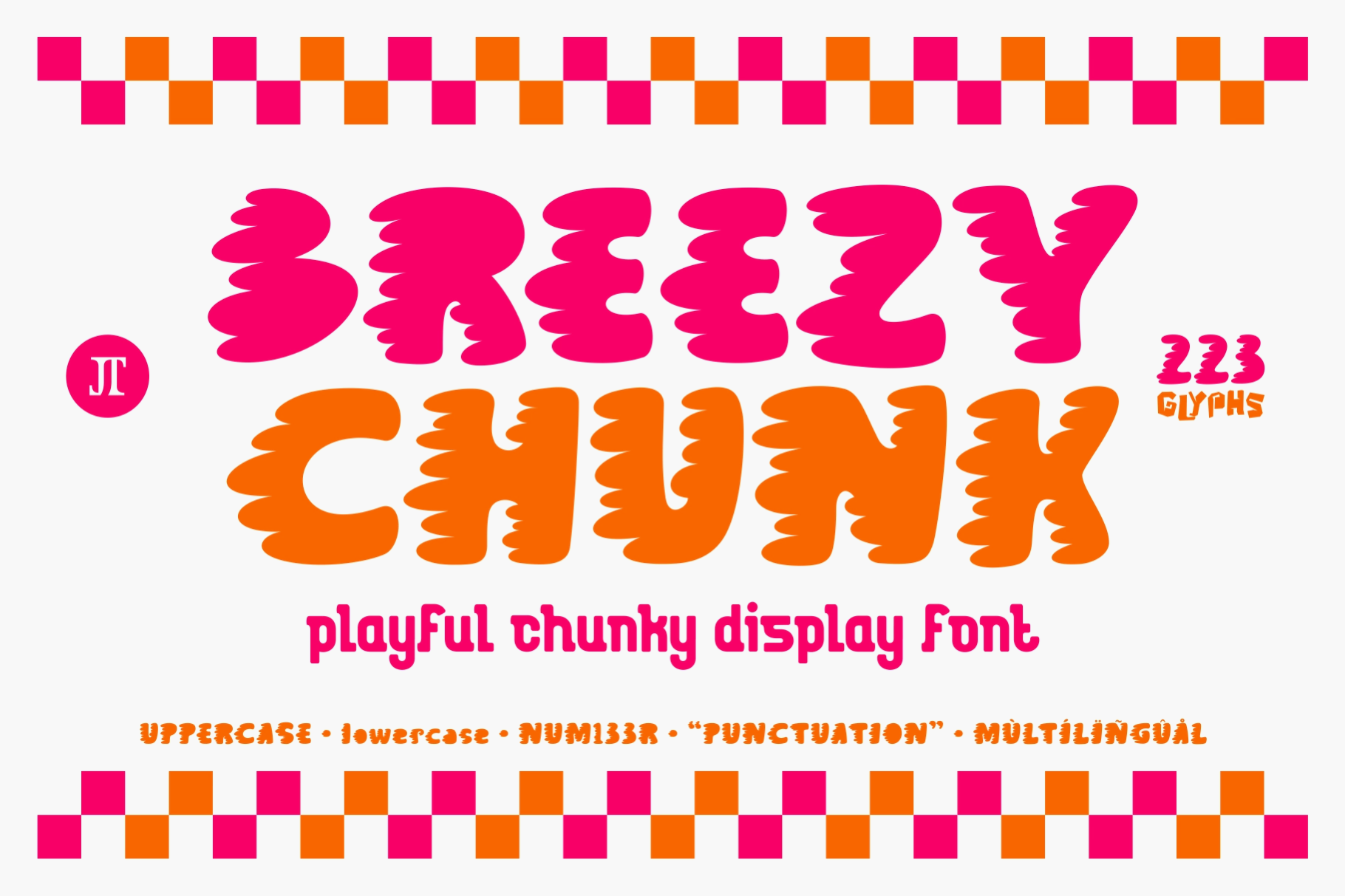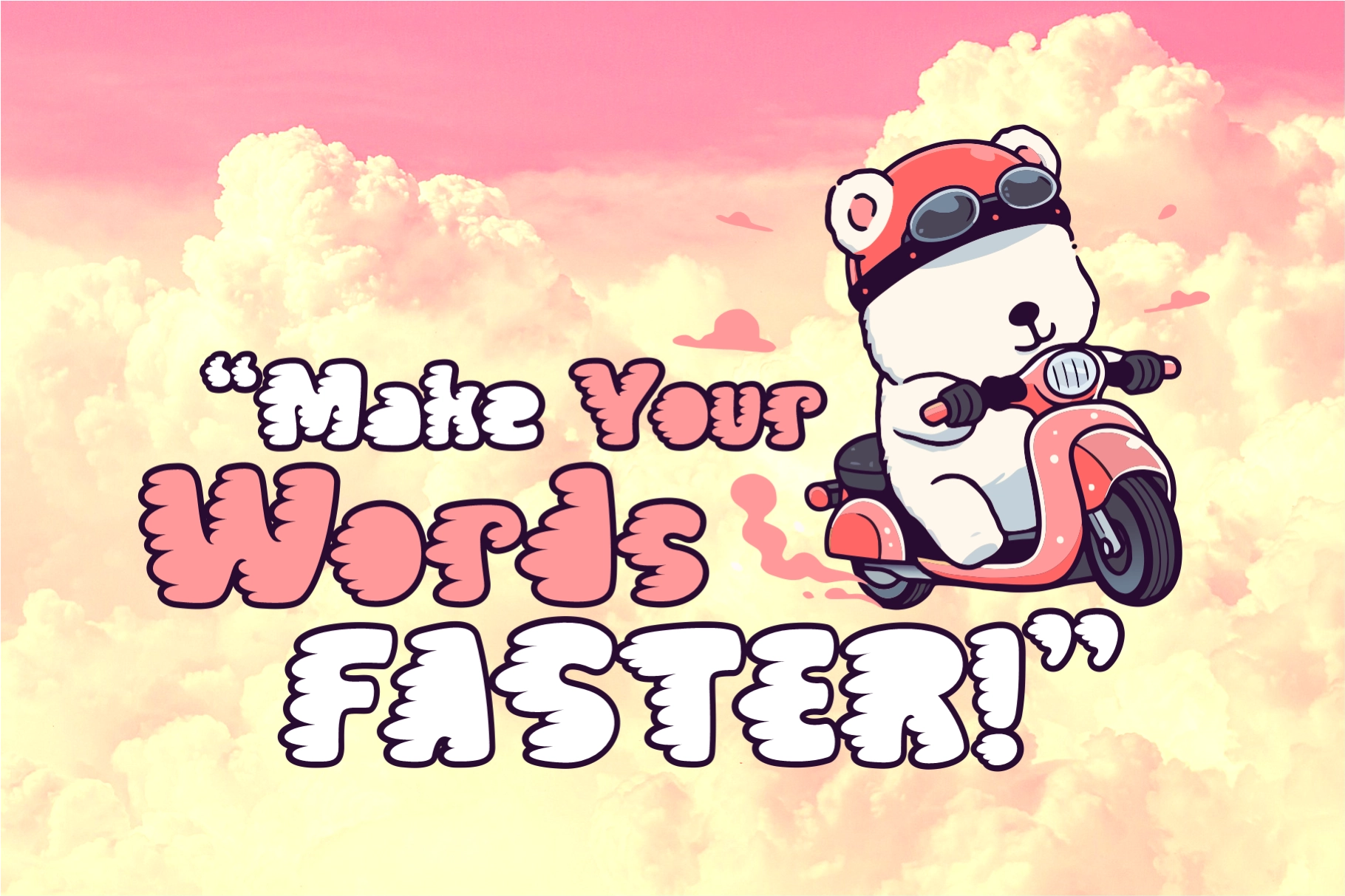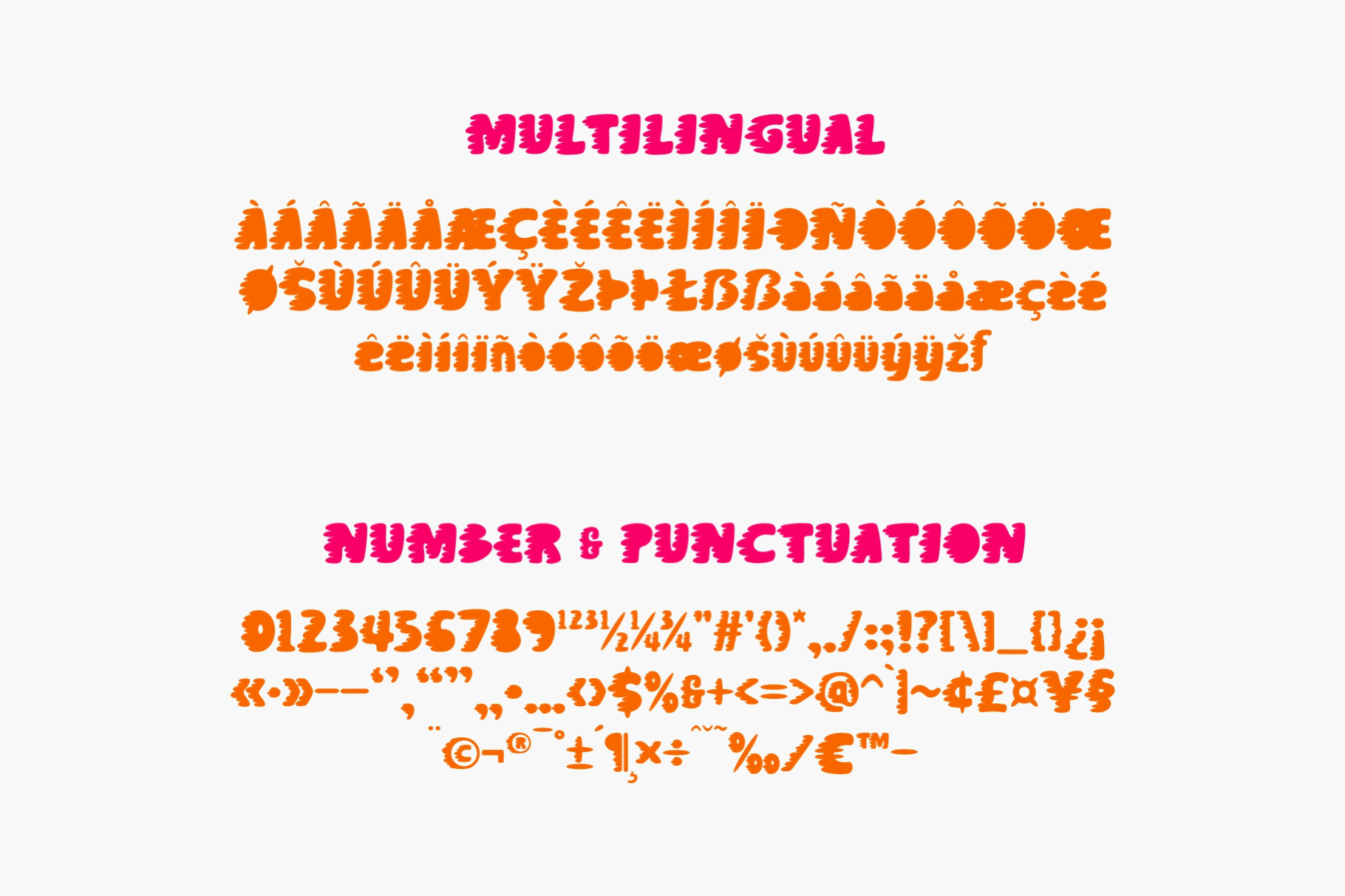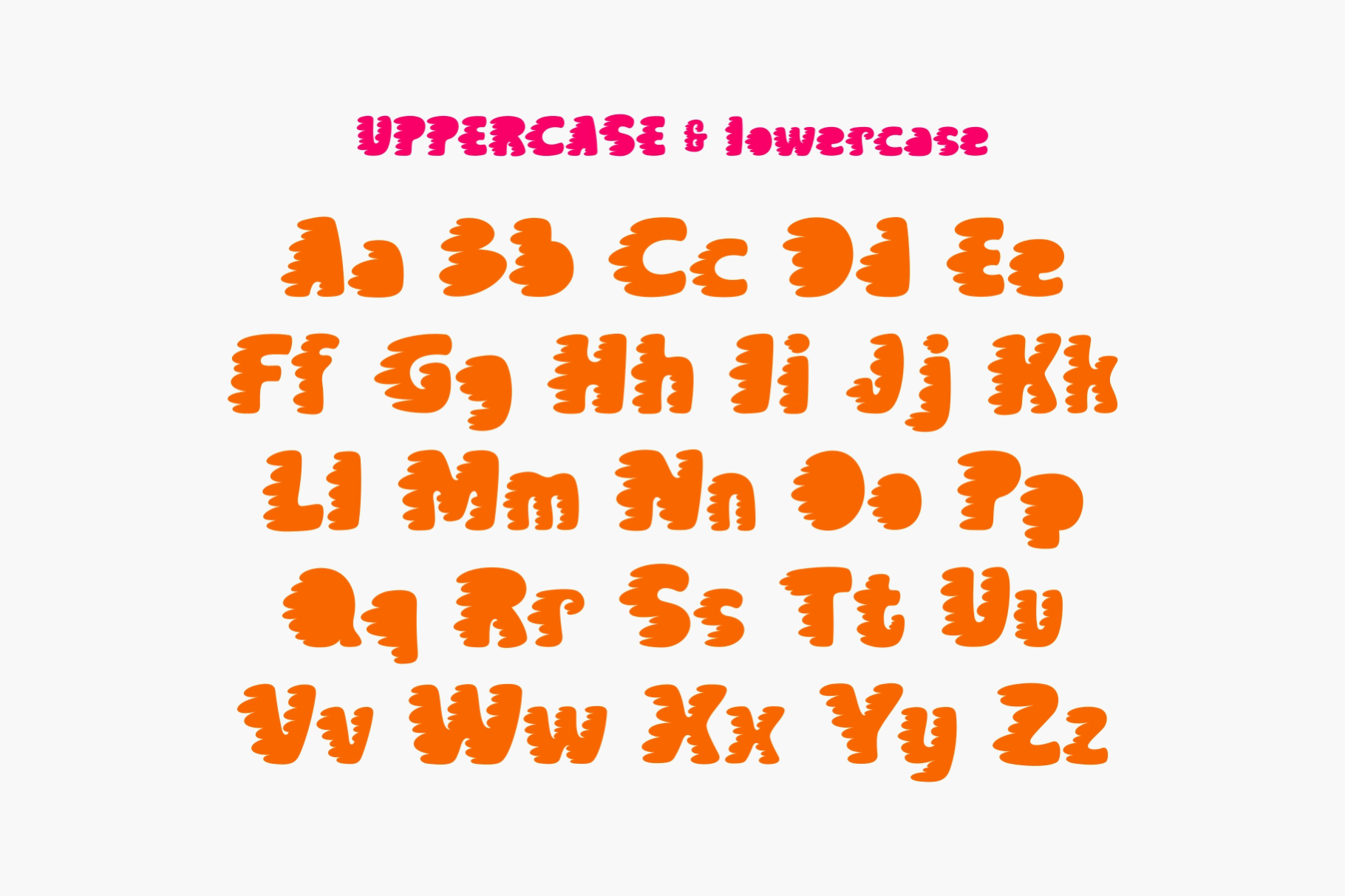
Breezy Chunk - Playful Chunky Display Font
Soft-edged, loud, and packed with cartoon energy, this playful display typeface is made for words that need to bounce off the page. Its chunky shapes, rounded curves, and speed-line cuts give each letter a friendly rush, somewhere between retro candy packaging and a scooter chase through cotton-candy clouds.
Breezy Chunk works for kids’ branding, sticker packs, snack packaging, toy logos, comic titles, YouTube thumbnails, event posters, social media graphics, party invitations, merch designs, game UI, classroom materials, and more. Uppercase is big and punchy, lowercase is softer and more casual, so the font can handle both headline work and short supporting phrases.
• 223 glyphs
• Numerals & Punctuation